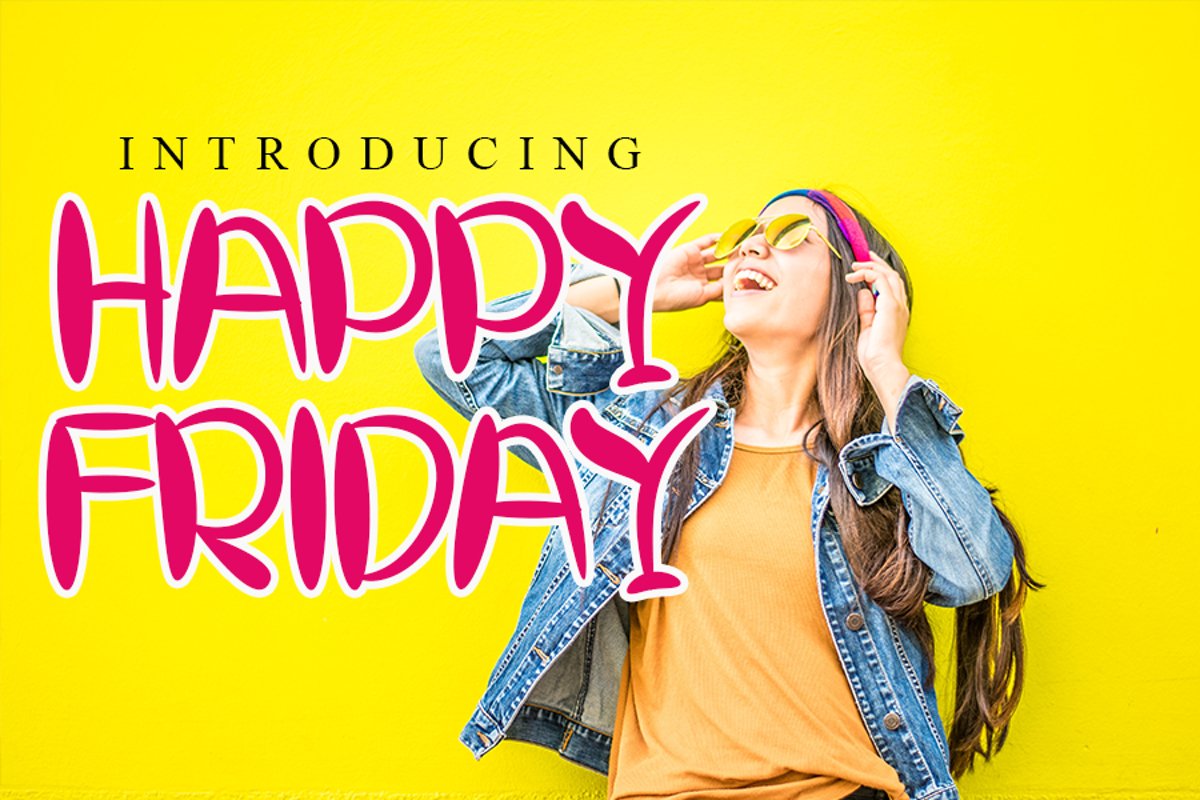
Happy Friday
HAPPY FRIDAY
Happy Friday embodies fun, quirkiness and authenticity. This enchanting handwritten font will turn any creative idea into a true standout.
+More than 100+ Glyphs
+More than 43 Languages
+PUA-Encoded for many alternates and ligatures